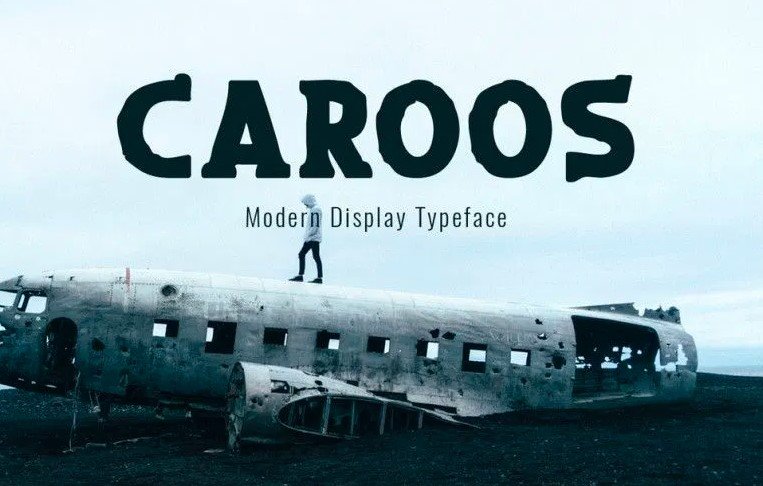
Caroos Font is a fantastic and distinctive display typeface known for its exceptional legibility, highly favored by seasoned graphic and website designers. You can fully enjoy all the font’s features for free, thanks to its opentype capabilities.
The font contains features that you will never found in any other premium font. It has lots of styles that will make any kind of project or designs attractive and elegant with its clear-cut and readable characters.
This is a famous and popular typeface around the font. The designer, designed this font by keeping the need of graphic designers and put all the great things in this font.
View Of Caroos Font
The font is perfectly suitable for large screen projects. Also, it can be adjusted in small projects as well. Because of its unique characters, it can be used for a wide range of designs easily.
The font contains display texture that will make your designs beautiful, elegant, and stylish. It has lots of features for making any kind of eye-catchy projects easily.
What Type of Font Is Caroos?
The Caroos Font is the famous and amazing typeface which was product of the Instagram Font.